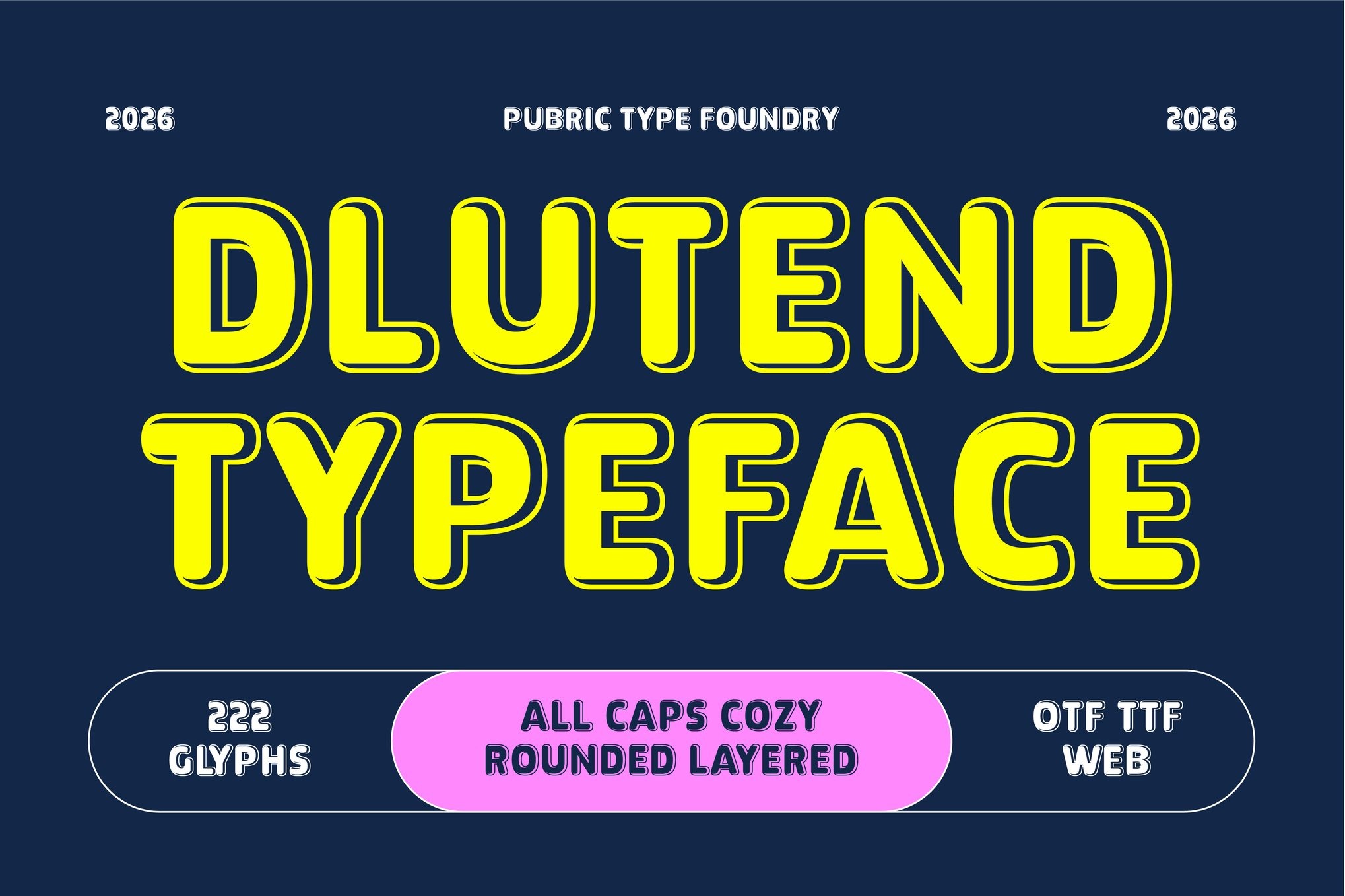
Dlutend Font
Dlutend Font is a distinctive and expressive font crafted to bring personality, structure, and creative energy into your projects. Dlutend is a rounded layered sans-serif typeface with overlapping outline details that create depth and movement. Its modern and playful personality makes it suitable for branding, posters, and bold digital visuals.